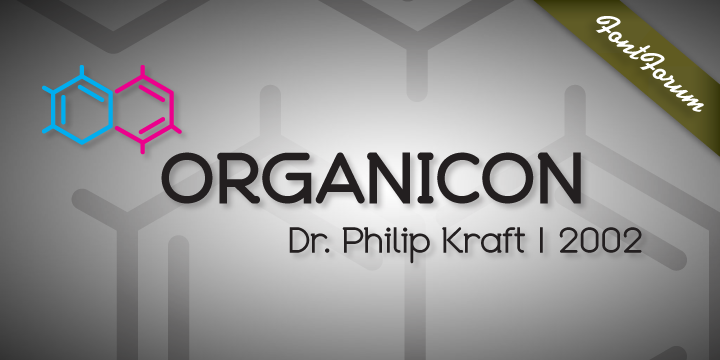
Looking to bring a touch of organic warmth and modern simplicity to your designs? Organicon Font Free Download offers an excellent opportunity to explore a typeface that's both friendly and contemporary. Remember, though, while an Organicon Font Free Download is usually available for personal and testing purposes, a commercial license is required for any professional or revenue-generating projects. This is crucial for legal compliance and supports the talented font designers.
The Organicon Font is incredibly versatile and shines in projects that aim for a natural, clean, and approachable aesthetic. Its often rounded edges, soft forms, or subtly handcrafted feel make it an excellent choice for eco-friendly branding, health and wellness products, and artisanal food packaging. It's ideal for children's book illustrations, educational materials, and natural cosmetic lines, where a gentle and inviting look is desired. Furthermore, consider Organicon Font for lifestyle blogs, sustainable design projects, and social media graphics that need to convey authenticity and a relaxed vibe. Its clarity and appealing character also make it perfect for mobile app interfaces and user-friendly web design.
What makes the Organicon Font so exciting is its ability to infuse designs with a sense of calm and natural harmony. It often features letterforms that feel approachable and unpretentious, reflecting a connection to nature or simplicity. This characteristic allows it to communicate warmth, trustworthiness, and a down-to-earth sensibility, making your message resonate with genuine appeal. It's a font that doesn't just display text; it embodies a lifestyle, adding a layer of organic charm and comforting familiarity to any creative endeavor. Its distinctive aesthetic ensures your work will stand out with a soft yet memorable presence.
The Organicon Font family typically offers a range of weights to enhance its versatility for different applications. You'll often find a well-crafted Regular weight, which might be complemented by Light or Bold variations to provide typographic contrast and emphasize different design elements. Some versions might also include italic styles or subtle texture variations to further enhance its organic or handcrafted appeal, providing additional creative options for unique and inviting text compositions.